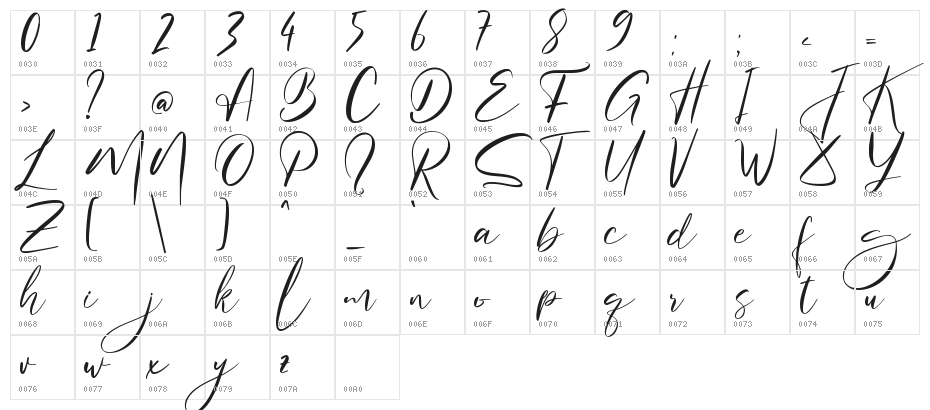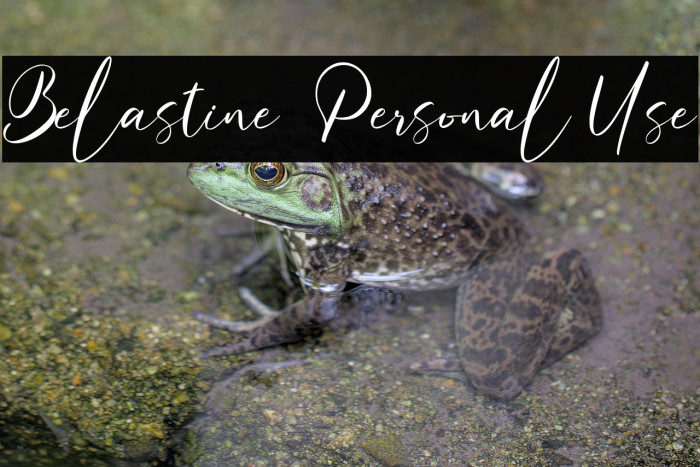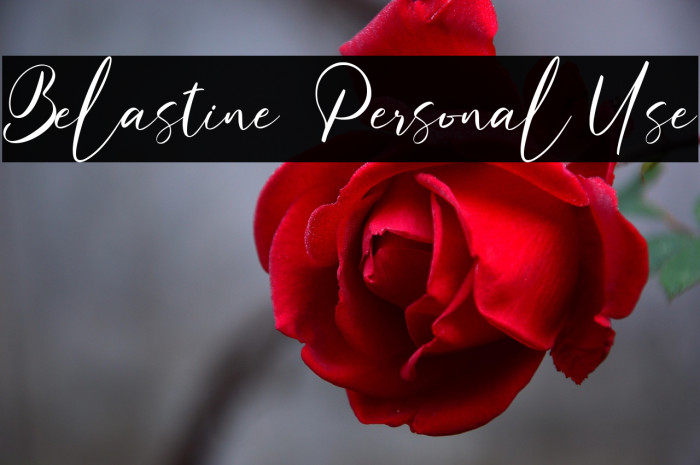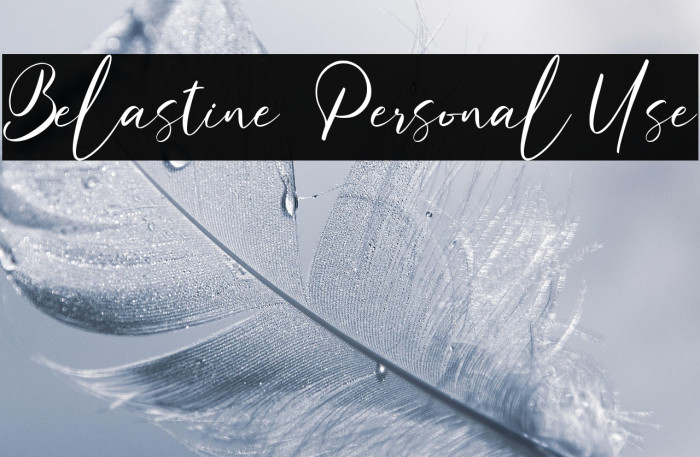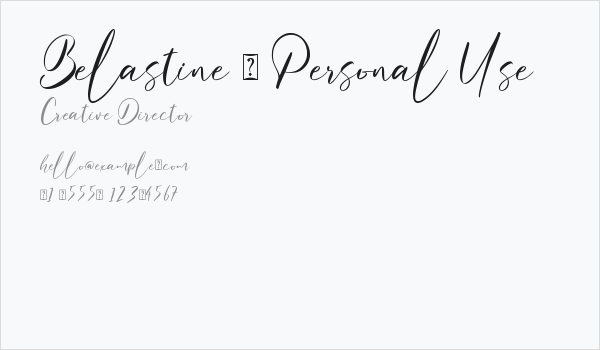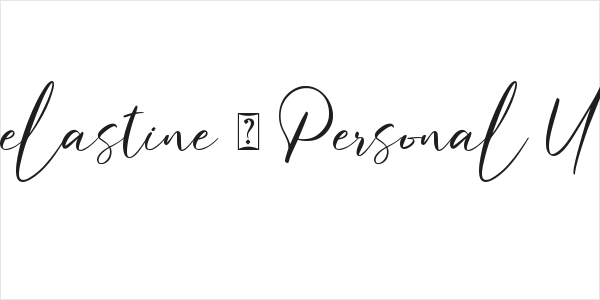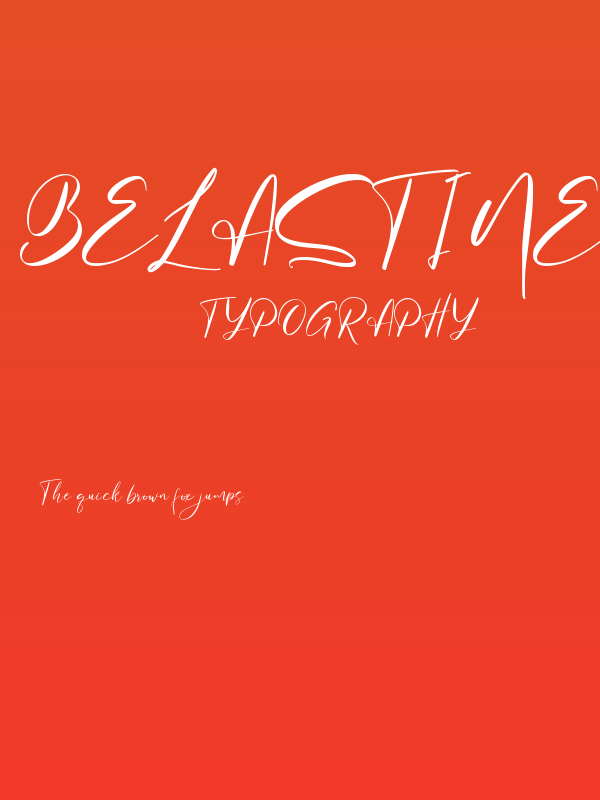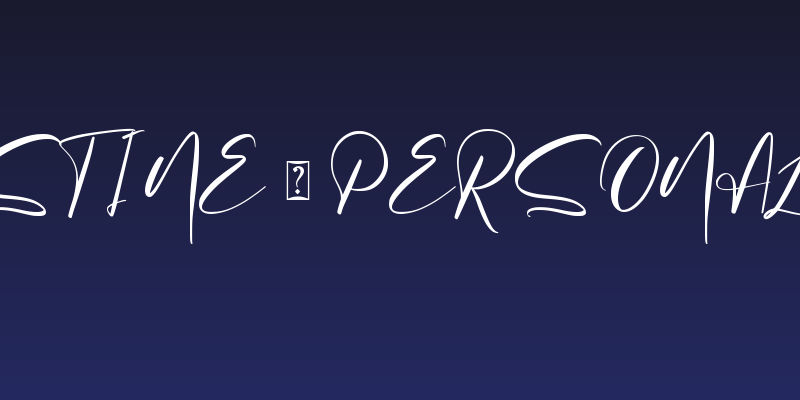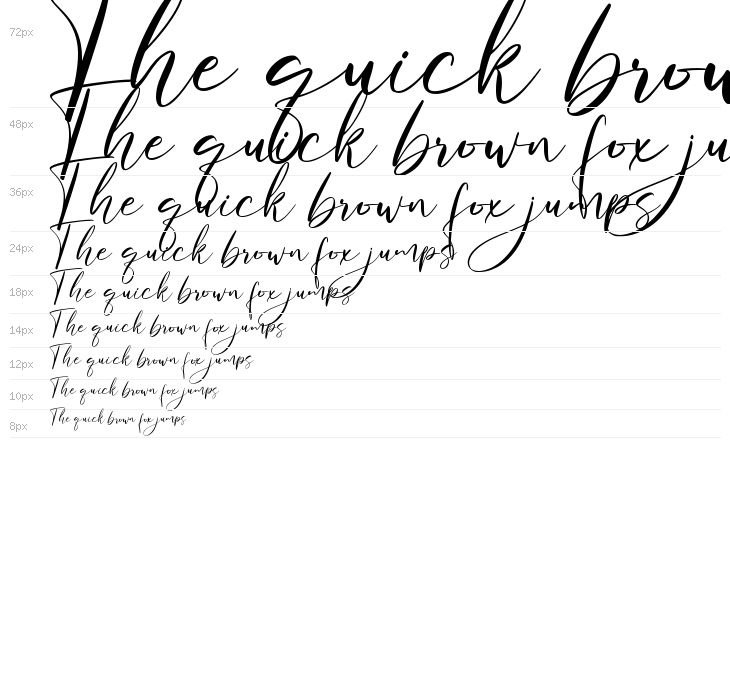
Belastine - Personal Use Font
Belastine - Personal Use Description
This font exhibits a flowing, cursive style with elegant, sweeping strokes that convey a sense of sophistication and grace. The uppercase letters are bold and dynamic, featuring a mix of thick and thin lines that add a touch of drama. The lowercase letters maintain a consistent fluidity, with some characters like 'r' and 's' showcasing intricate loops and flourishes. The numerals are distinct and maintain the same cursive flair, ensuring readability while preserving the overall aesthetic. Special characters are designed with the same attention to detail, seamlessly integrating with the rest of the font. This font is ideal for projects that require a personal, handwritten touch, such as invitations, greeting cards, or branding materials.
| Overall Style | Elegant, Sophisticated |
| Proposed Projects | Ideal for wedding invitations, personal branding, greeting cards, and elegant stationery. |